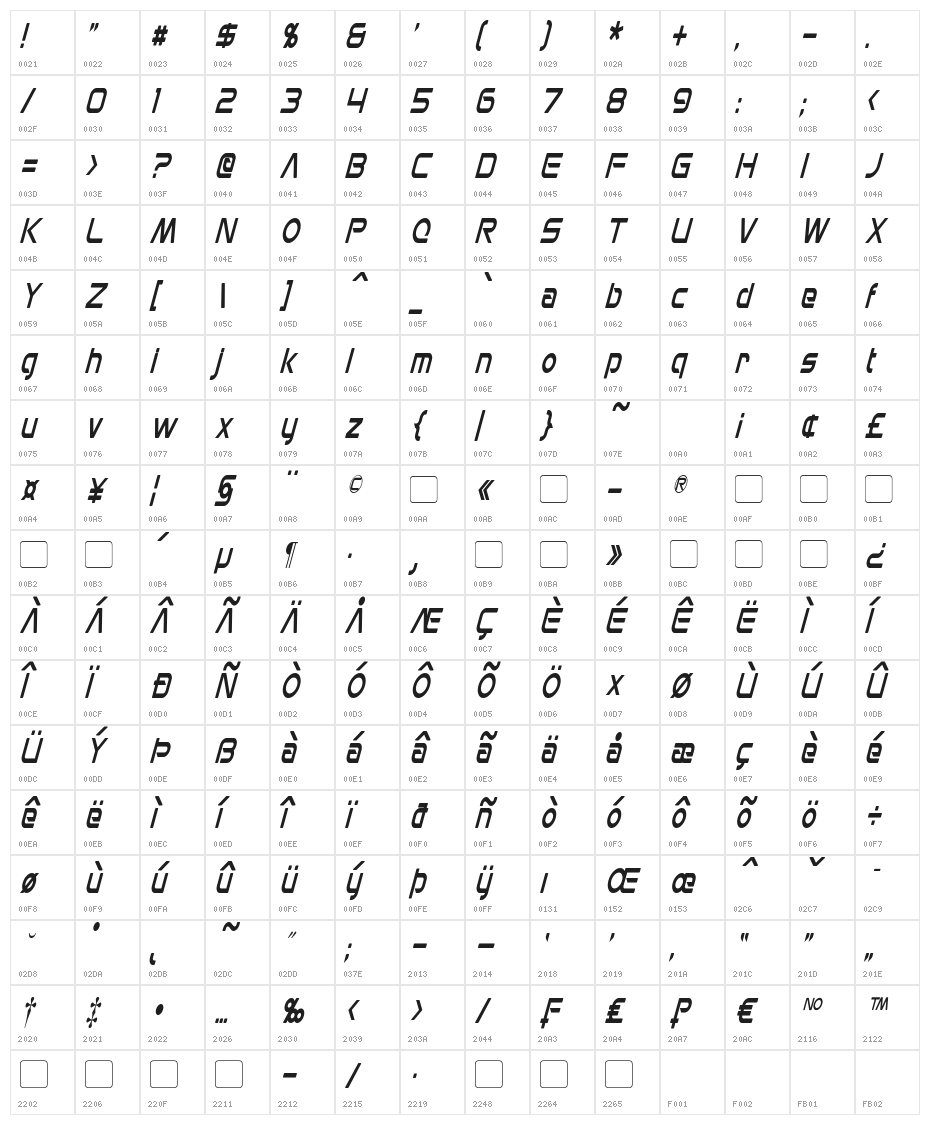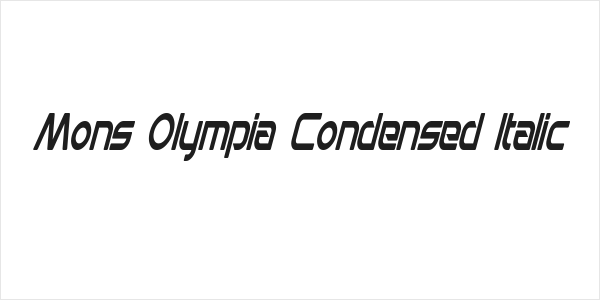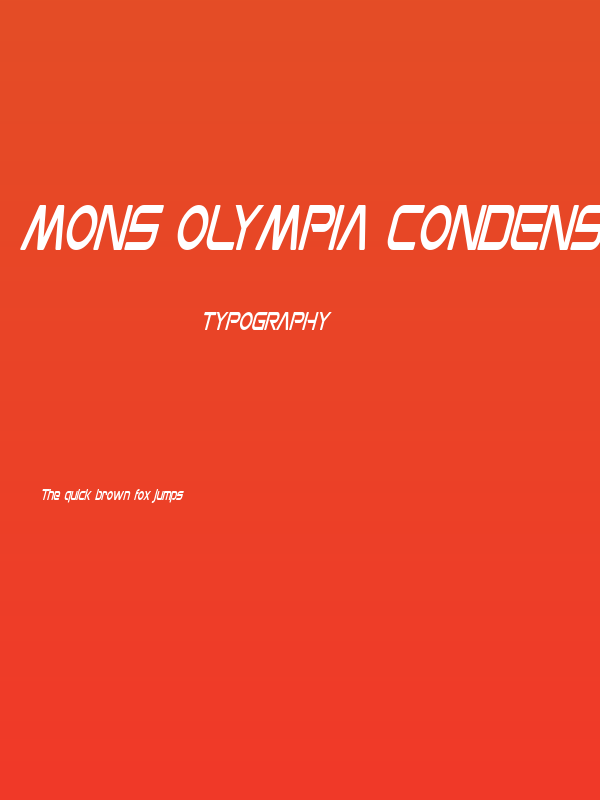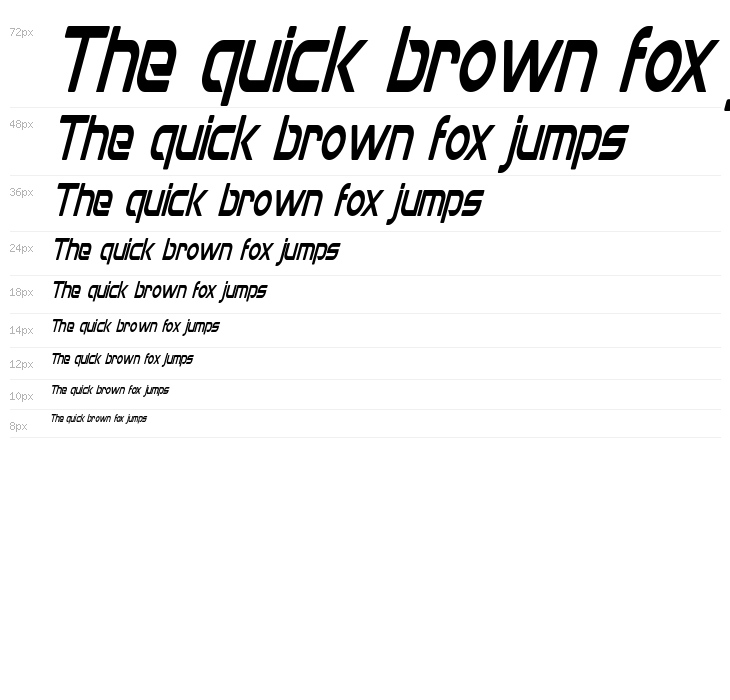
Mons Olympia Condensed Italic Font
Mons Olympia Condensed Italic Description
This font features a modern, sleek design with a condensed and italicized style. The characters are slightly slanted, giving a dynamic and forward-moving appearance. The strokes are uniform in thickness, providing a clean and consistent look. The uppercase and lowercase letters maintain a cohesive style, with rounded edges and smooth curves. The numerals and special characters follow the same design principles, ensuring a harmonious overall appearance. This font's condensed nature makes it suitable for space-saving applications while maintaining readability.
| Use Case | Headlines, Logos, Advertising |
| Proposed Projects | Ideal for modern branding projects, tech-related designs, and dynamic advertising materials. |